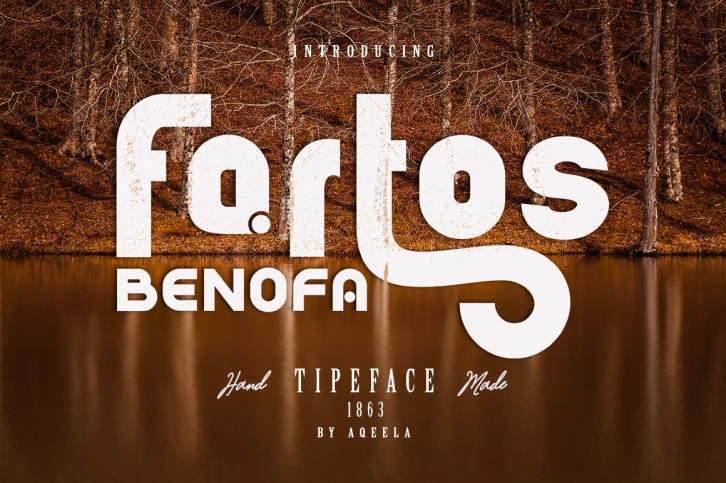
Fartos Benofa is a beautiful font that was designed by Aqeela Studio. It's a great choice for designers and creatives who need such a font. It was released on October 5, 2019 and the file size is 1.91 MB. Fartos Benofa may give a more youthful, expressive and casual look to your project. It is a very beautiful, refined, elegant, and high-quality font.